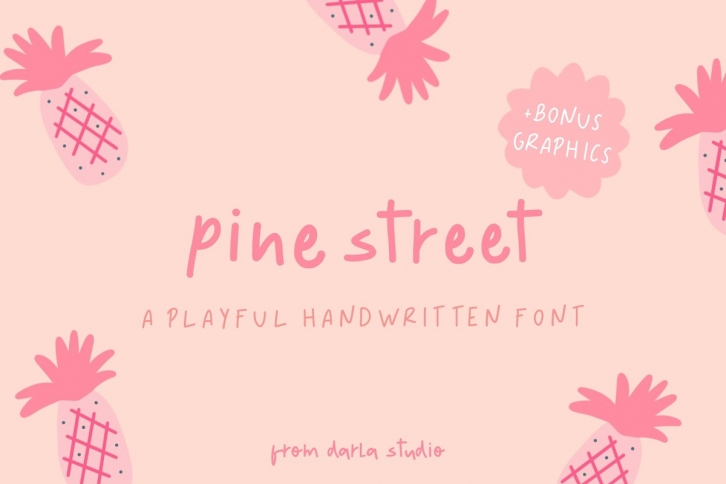
Pine Street is a playful handwritten font perfect for creating quotes, Logos, Branding, Blogs, Greeting Cards, Social Media, Cricut Designs, to use in your Digital Planner, or just adding an handwritten, touch to any creative project!